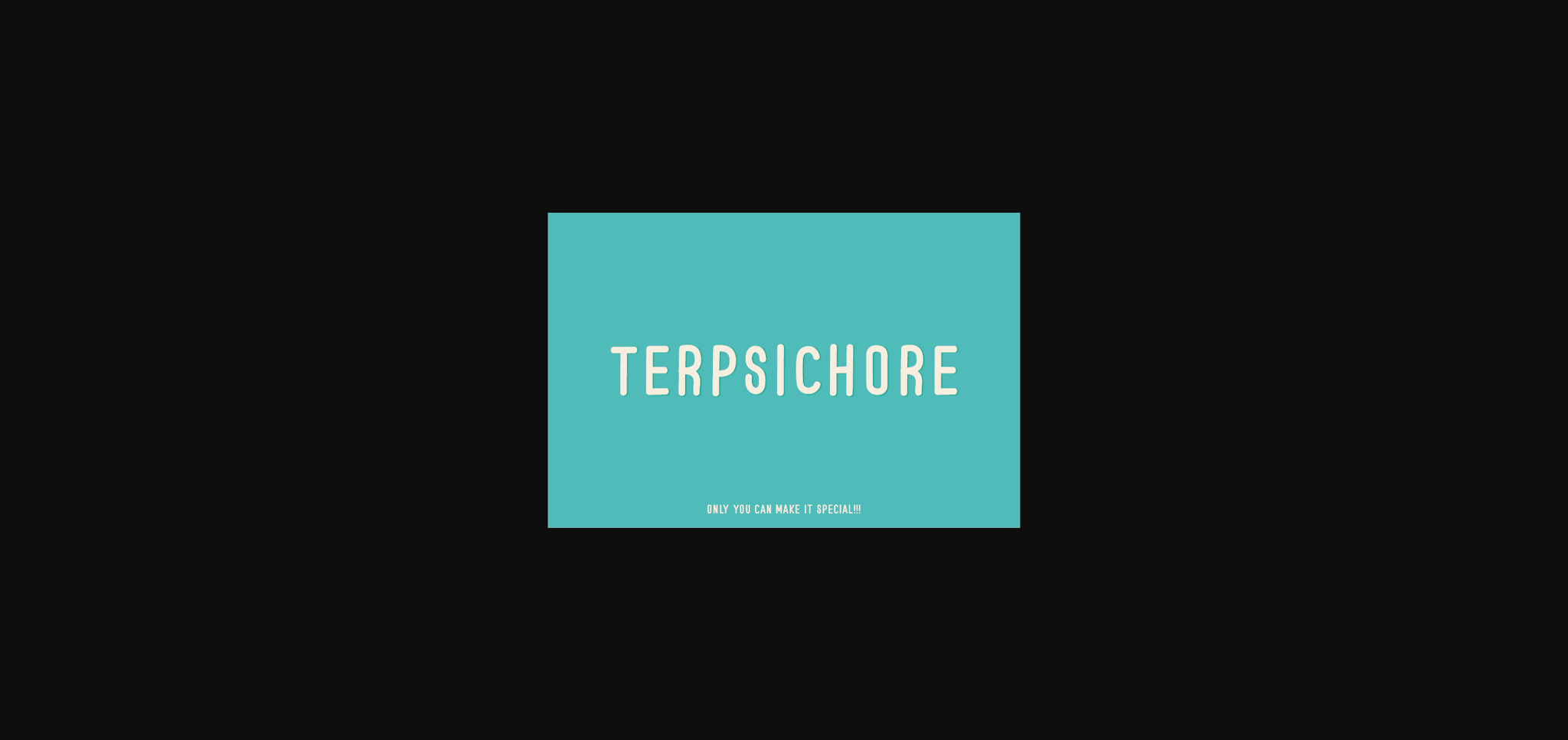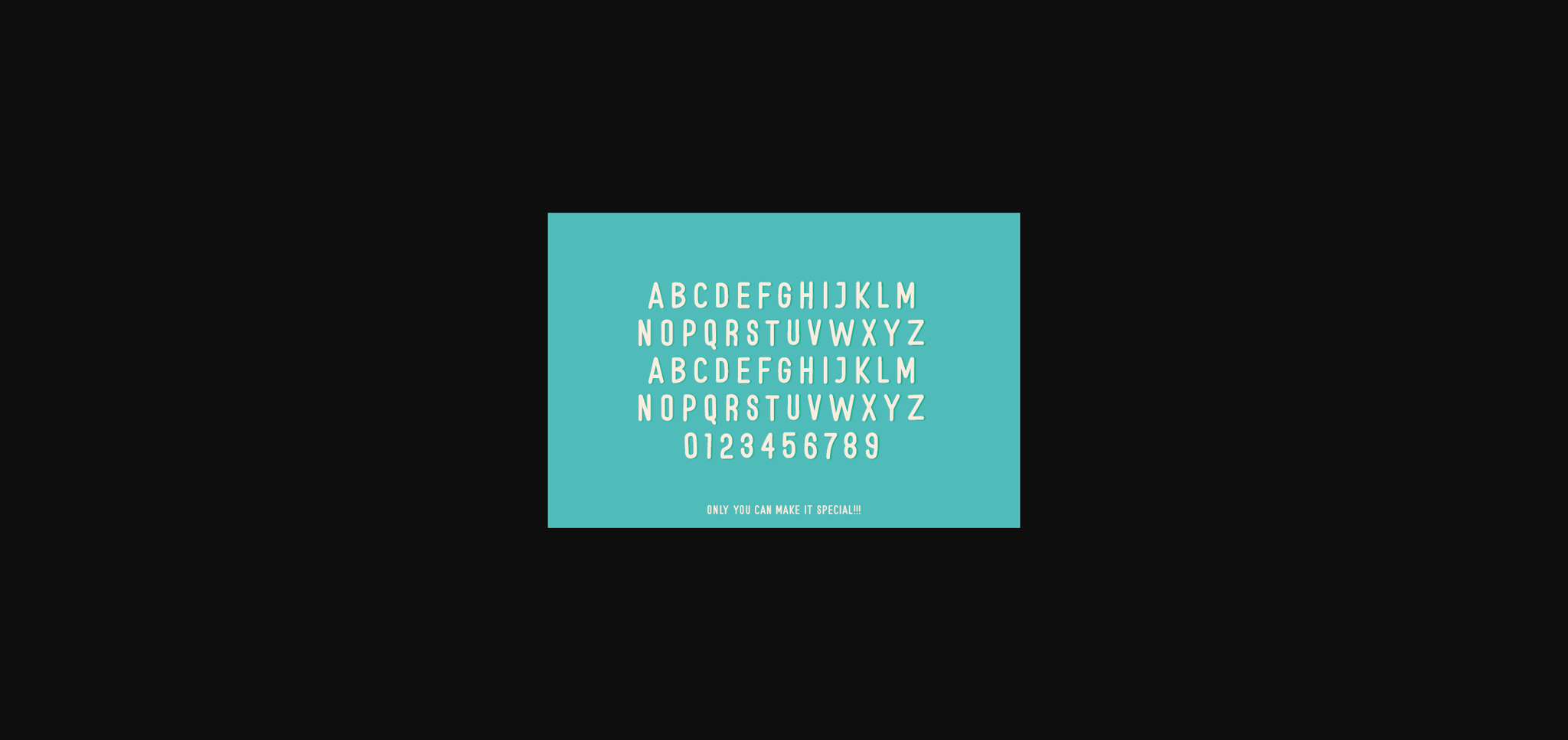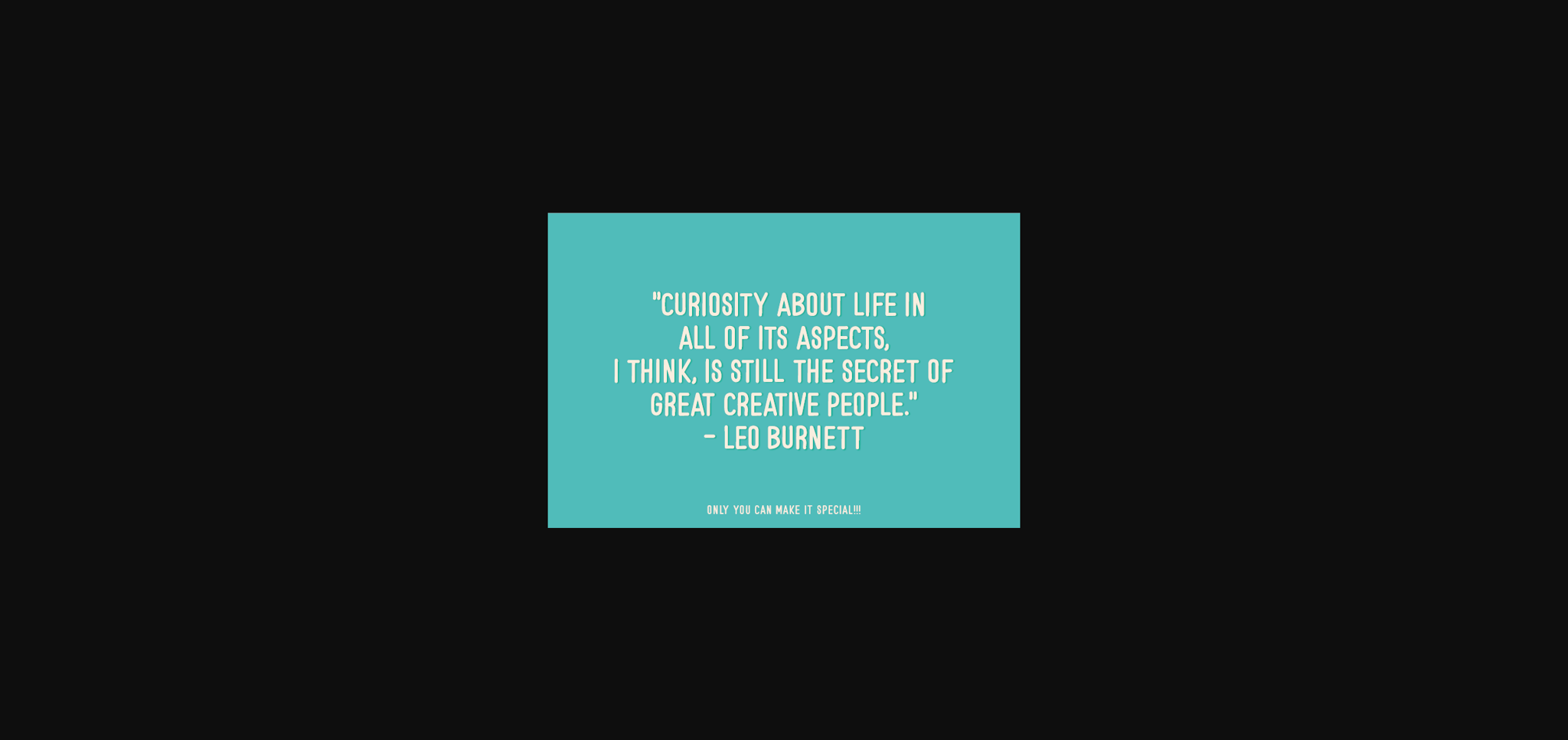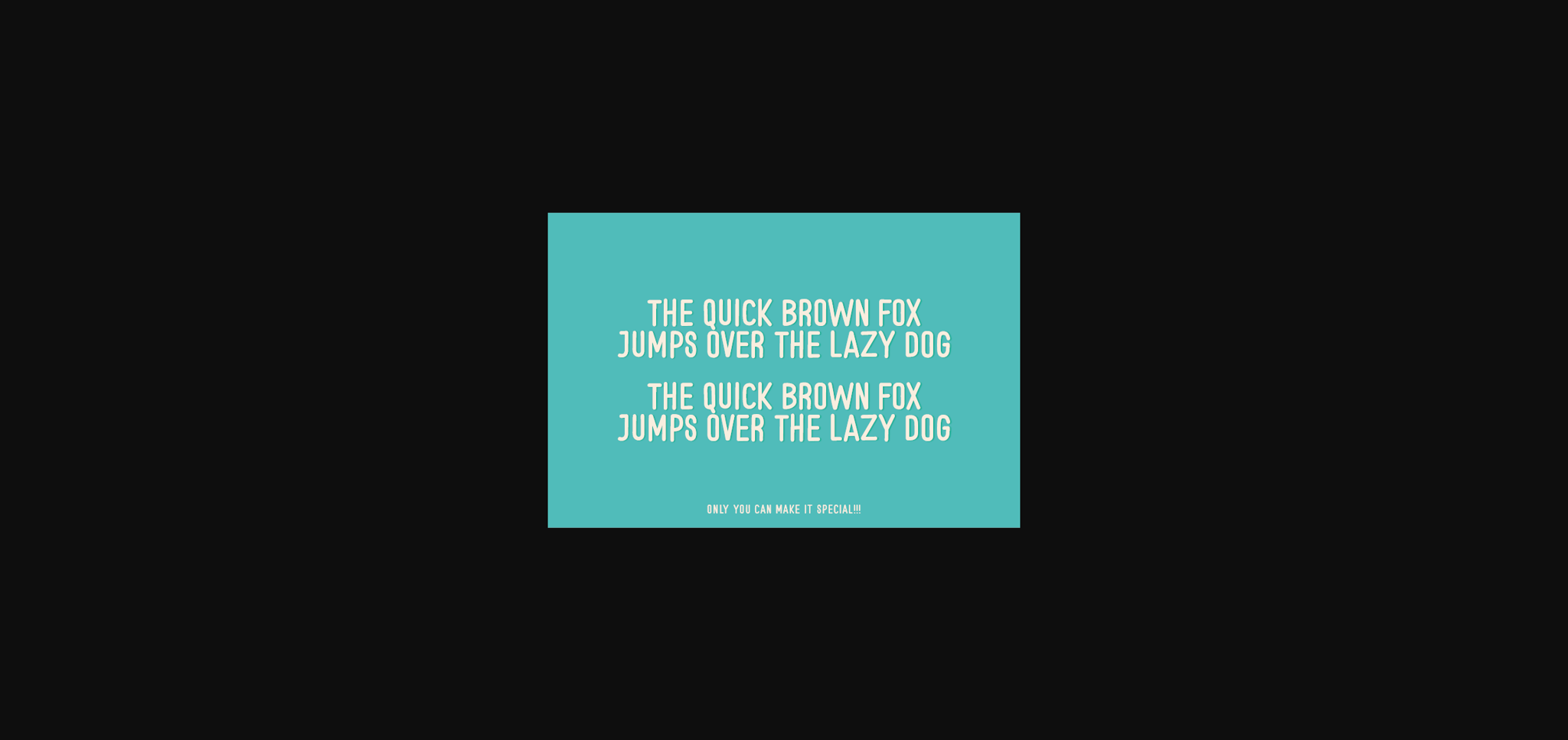
HomeSans Serif FontsTerpsichore Font Sans Serif Fonts Terpsichore Font FacebookXPinterestWhatsApp 1 of 6 ... Terpsichore Font Poster 2... Terpsichore Font Poster 3... Terpsichore Font Poster 4... Terpsichore Font Poster 5... Terpsichore Font Poster 6... About Terpsichore Font Terpsichore is a natural sans serif font made without changing a single node in each character’s indentation – this makes this font very interesting and unique. Perfect for quotes, notes, tees, and any product design. DOWNLOAD NOW People also explored NaPeyda Font Landma Font Taos No Rules Font The Quietty Font Dribble Font Simpel Stacked Font Font Hunter Font Boho Font 316 0 TagsTerpsichore Font Previous articleHyacinth FontNext articleKanchana Font LEAVE A REPLY Cancel reply Comment: Please enter your comment! Name:* Please enter your name here Email:* You have entered an incorrect email address! Please enter your email address here Website: Save my name, email, and website in this browser for the next time I comment. Personal Use Free True Love Personal Use Free Read more about this font Antaro Personal Use Free Read more about this font Quentin Personal Use Free Read more about this font Miracles Personal Use Free Read more about this font BLOG Free Fonts Risk: Why Free Fonts Can Be Dangerous for Designers Free Fonts Risk: Why Free Fonts Can Be Dangerous for Designers Using free fonts is a common practice in web and graphic design. However, the... Top 10 Handwritten Fonts That Elevate Your Designs Where to Buy American Fonts Online in 2024 5 Fonts That Will Dominate Design Trends in 2026